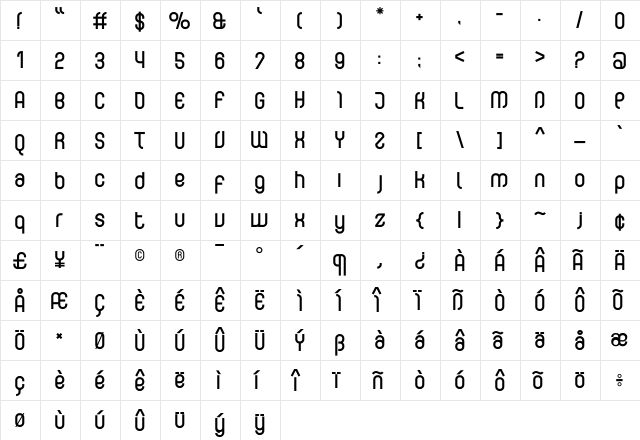
Curvature Bold
Design Context for Curvature Typeface
Curvature offers clean, dependable letterforms without strong stylistic allegiance, making it a practical choice for designers who need flexibility. The heavy weight commands attention and anchors typographic hierarchies.